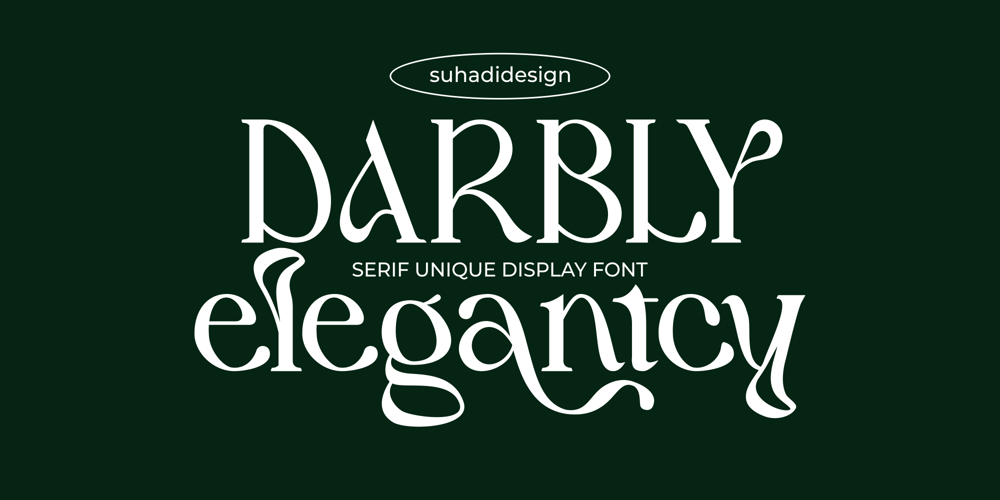
Darbly Elegantcy Font Family was designed by ahmad suhadi and published by suhadidesign. Darbly Elegantcy contains 1 styles and family package options. Darbly Elegantcy Serif FontHi ladies and gentlemen! The season of market popularity for unique serif typeface fonts, I created a serif font to suit your needs. The Darbly Elegantcy font is a unique serif typeface with ligatures and alternates. to become a market favorite. We made this font clear, unique, easy to read, and easy to use. Darbly Elegantcy Font is a great choice for magazine design, newspaper, fashion, classy design, newspaper, modern, book, brand name, branding and other projects. The Darbly Elegantcy font is here to improve the quality of your designs.Follow us for your next classy font creation :)Feature:• Uppercase • Lowercase • Multilingual Support • Numbers and punctuation • Ligatures • Alternates